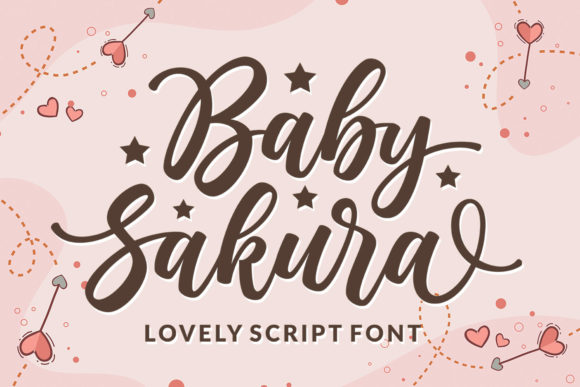
Immerse yourself in the world of Baby Sakura Font, a breathtaking light handwritten font crafted with artistic precision to deliver an unforgettable visual experience. Its enchanting strokes, reminiscent of graceful calligraphy, exude elegance and sophistication, adding a luxurious touch to any creative project you envision.
Unleash the boundless possibilities of Baby Sakura and watch your designs blossom into masterpieces. Its meticulously designed characters, meticulously crafted with a human touch, convey a sense of warmth and authenticity that resonates with audiences. Whether you're crafting logos, branding materials, or captivating social media posts, Baby Sakura elevates your creations, making them stand out from the mundane.
With Baby Sakura as your creative ally, you'll discover a font that possesses both versatility and charm. Its inherent adaptability allows it to seamlessly blend with various design styles, from classic and timeless to modern and edgy. Let your imagination soar as you explore countless possibilities, knowing that Baby Sakura will effortlessly complement your vision.
Embark on a creative journey with Baby Sakura and unlock the true potential of your designs. Witness how this captivating font transforms ordinary words into captivating expressions, conveying emotions that transcend language. Its alluring curves and delicate details captivate your audience, creating an immersive experience that leaves a lasting impression.